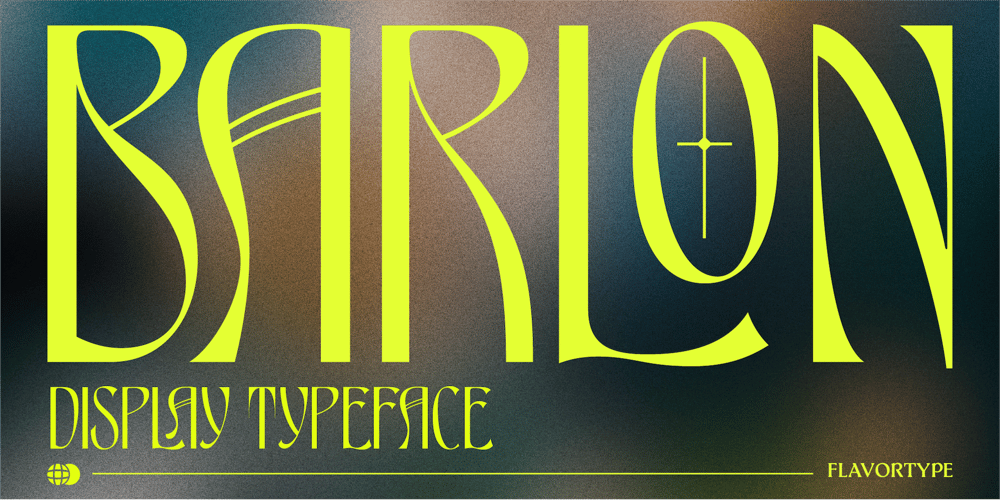
Barlon
Barlon font
Barlon Font Family was designed by Ilham Herry, Adam Fathoni Haris and published by Flavortype. Barlon contains 1 styles and family package options. Barlon is a typefaces with a strong characteristic. The ideas are from Art Nouveau era, explore some of other art era and combining them into strong characteristic Barlon. The final fonts are looks Classic yet Modern, like what we do on the preview above, how the fonts can “stands” within your design.Software Requirements :fonts is supported with most software but for the OpenType features will only active when activated on the software. But still most of the software are supported like Adobe Product, Word, Excel, Apple Pages & Numbers, etc.Language Support : Afrikaans, Albanian, Asu, Basque, Bemba, Bena, Catalan, Chiga, Cornish, Danish, Dutch, English, Estonian, Faroese, Filipino, Finnish, French, Friulian, Galician, German, Gusii, Icelandic, Indonesian, Irish, Italian, Kabuverdianu, Kalenjin, Kinyarwanda, Low German, Luo, Luxembourgish, Luyia, Machame, Makhuwa-Meetto, Makonde, Malagasy, Malay, Manx, Morisyen, North Ndebele, Norwegian BokmÃ¥l, Norwegian Nynorsk, Nyankole, Oromo, Portuguese, Romansh, Rombo, Rundi, Rwa, Samburu, Sango, Sangu, Scottish Gaelic, Sena, Shambala, Shona, Soga, Somali, Spanish, Swahili, Swedish, Swiss German, Taita, Teso, Vunjo, Welsh, Western Frisian, Zulu